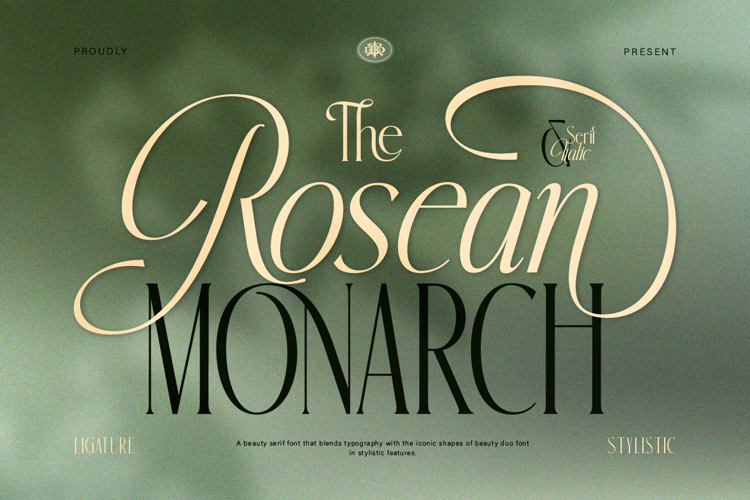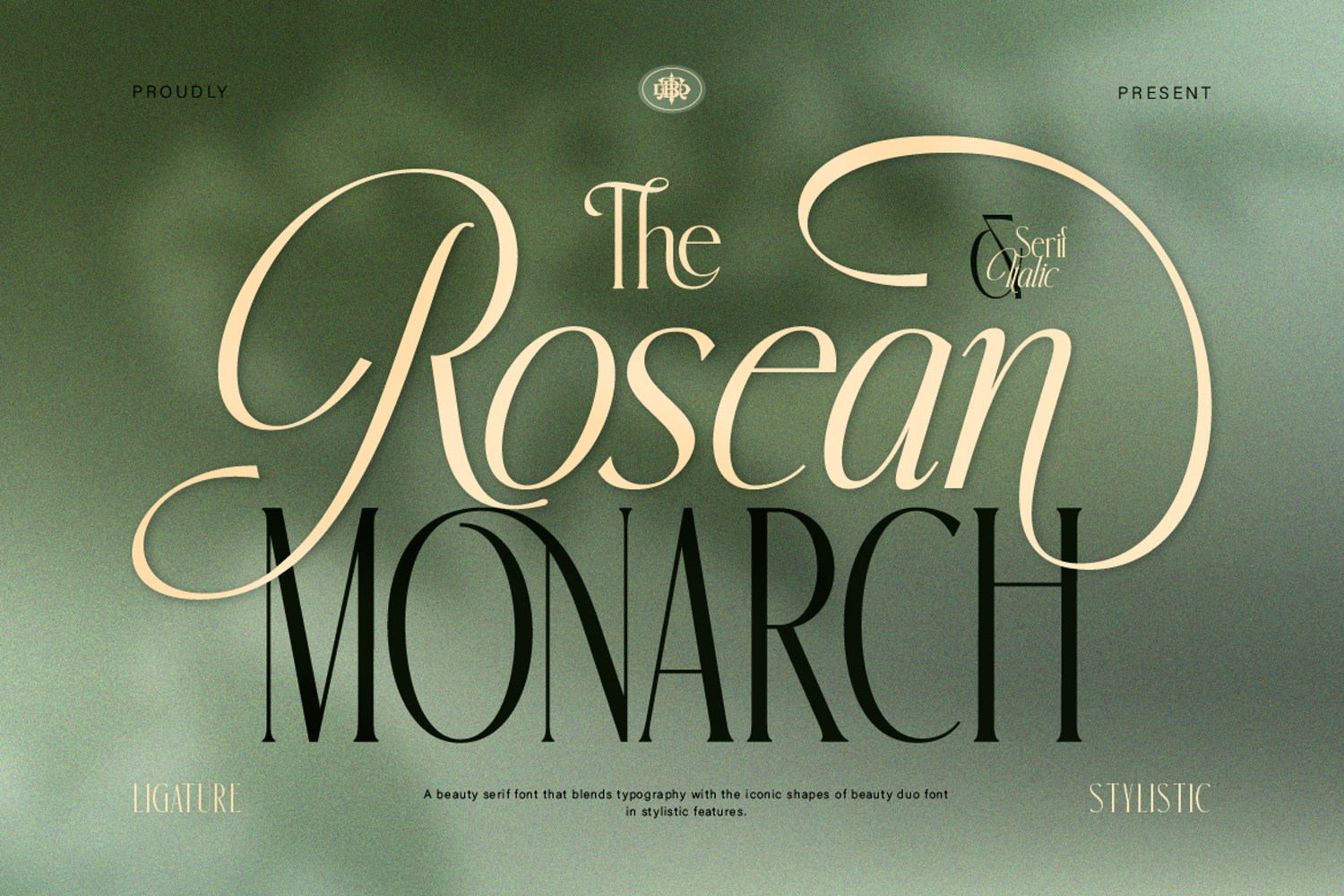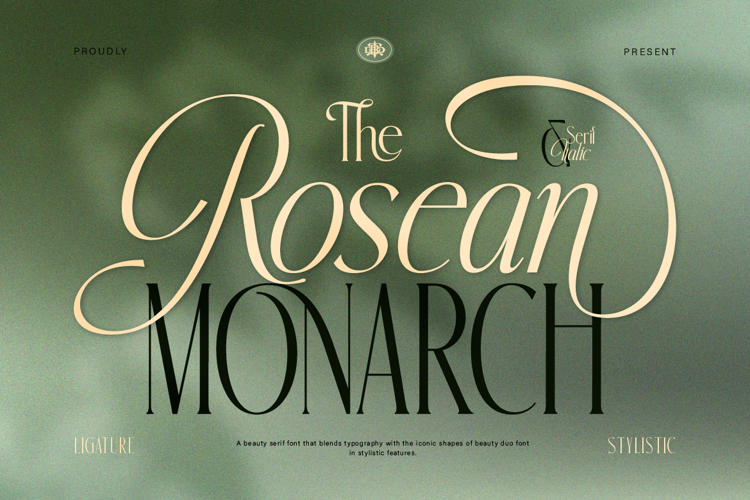
Rosean Monarch is an elegant serif duo typeface that pairs a clean, modern serif with a flowing italic companion style. Designed for brands that want to feel timeless yet contemporary, this font blends classic serif structure with graceful, romantic curves — perfect for adding a touch of sophistication to any project.
Rosean Monarch brings a refined, editorial-meets-romantic aesthetic to your designs — ideal for creators, and designers looking for a versatile serif font with a distinctive elegant touch.